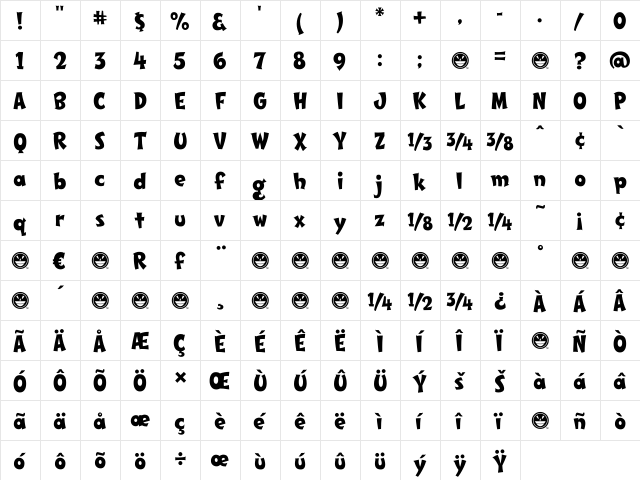
SCRIPT1 Toon Casual Normal Font Preview
SCRIPT1 Toon Casual Normal
SCRIPT1 Toon Casual Normal Font Details
Design Context for SCRIPT1 Toon Casual Typeface
SCRIPT1 Toon Casual flows with the natural rhythm of handwritten lettering, making it ideal for designs that call for warmth and personal expression.